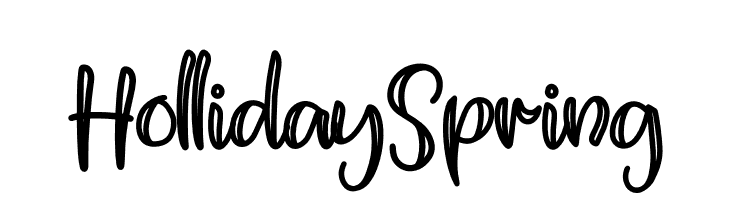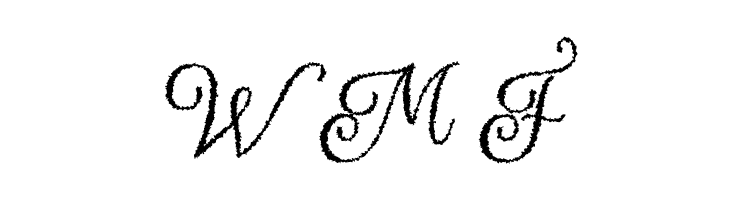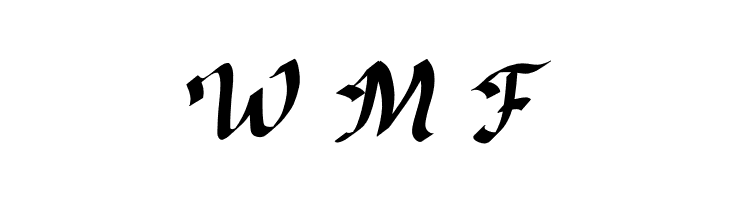
A bold, playful font with thick, rounded strokes and a festive feel.
A decorative font with a knitted, sweater-like appearance.
A whimsical, decorative font with curly embellishments and a festive appearance.
A bold, decorative font with a snowflake pattern, perfect for festive themes.
A playful, bold font with a hand-drawn, festive style.
A playful, festive font with a hand-drawn, decorative style.
A playful font with bunny ear embellishments, perfect for festive and cheerful designs.
Whimsical, festive script with ornate swashes and bold, flowing lowercase.
Festive, ornament-themed decorative font with a handwritten touch.
Whimsical handwritten script with festive, decorative loops.
Ornate, calligraphic script with blackletter influences and high contrast.
Bold, bubbly font with snow-topped letters for festive themes.
Christmas-themed dingbat icons in a clean, outlined style.
Festive, decorative display font with snowflake accents.
A festive, decorative script font with playful, flowing strokes.
Decorative serif font with high contrast and festive, whimsical style.
Festive decorative font with star and ornament details.
Whimsical, decorative script with festive swashes and heart accents.
A festive, decorative script font with holiday-themed flourishes.
Bold, festive display font with jagged, playful edges.
Bold, festive display font with Christmas-themed decorations.
Bold, festive script with calligraphic, hand-drawn style.
Bold, festive display font with jagged, winter-inspired cutouts.
Festive monogram font with Christmas-themed decorations.
Playful, decorative script with tall, narrow, and festive letterforms.
A fun, decorative font with a holiday-inspired, hand-drawn style.
A bold, decorative font with a knitted sweater pattern ideal for festive themes.
A playful font with characters enclosed in dreidel shapes, ideal for festive themes.
A decorative serif font with snowflake embellishments, perfect for festive designs.
A bold, decorative font with stars and stripes, inspired by the American flag.
A festive dingbat font with St. Patrick's Day symbols like shamrocks and leprechaun hats.